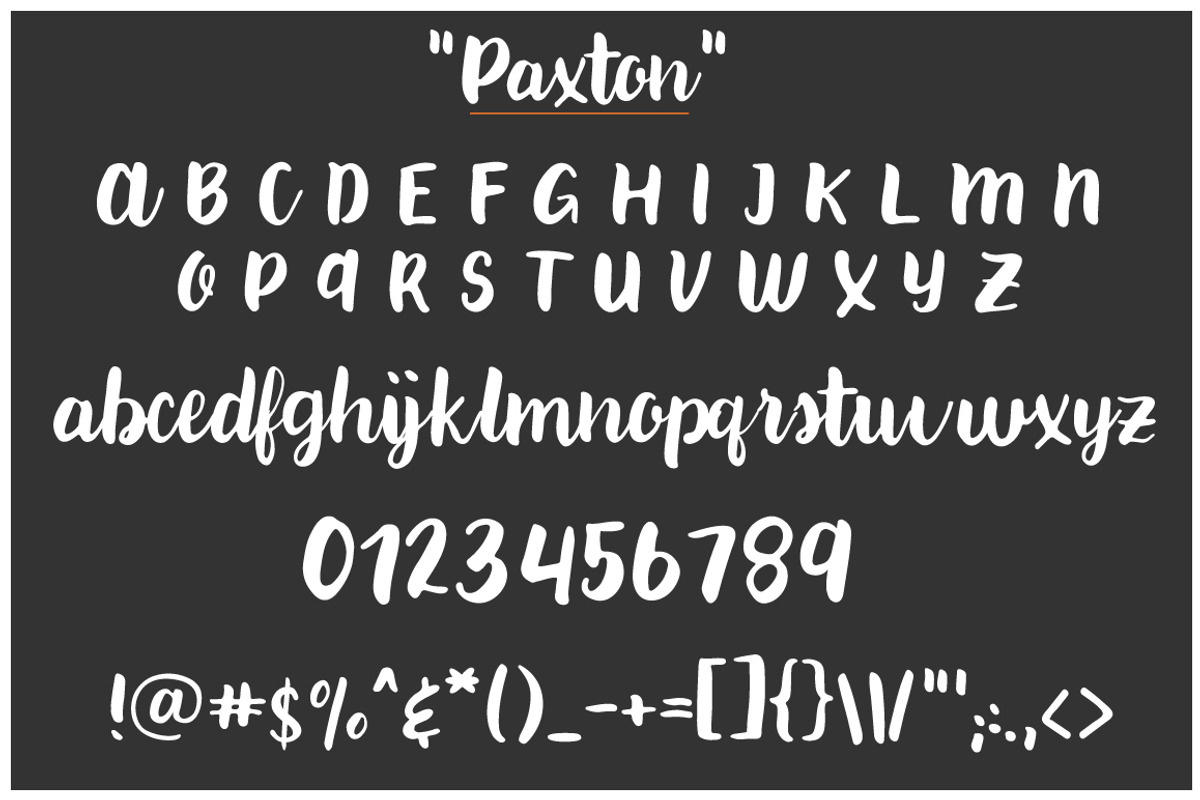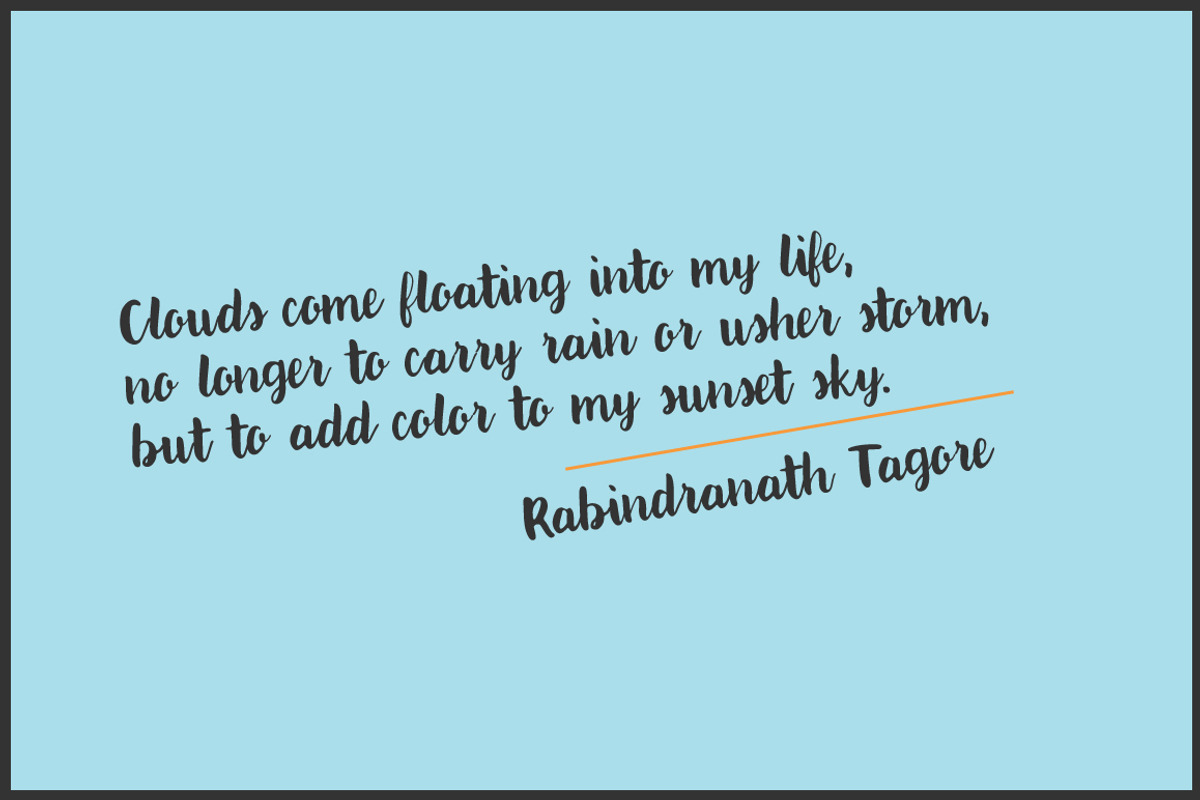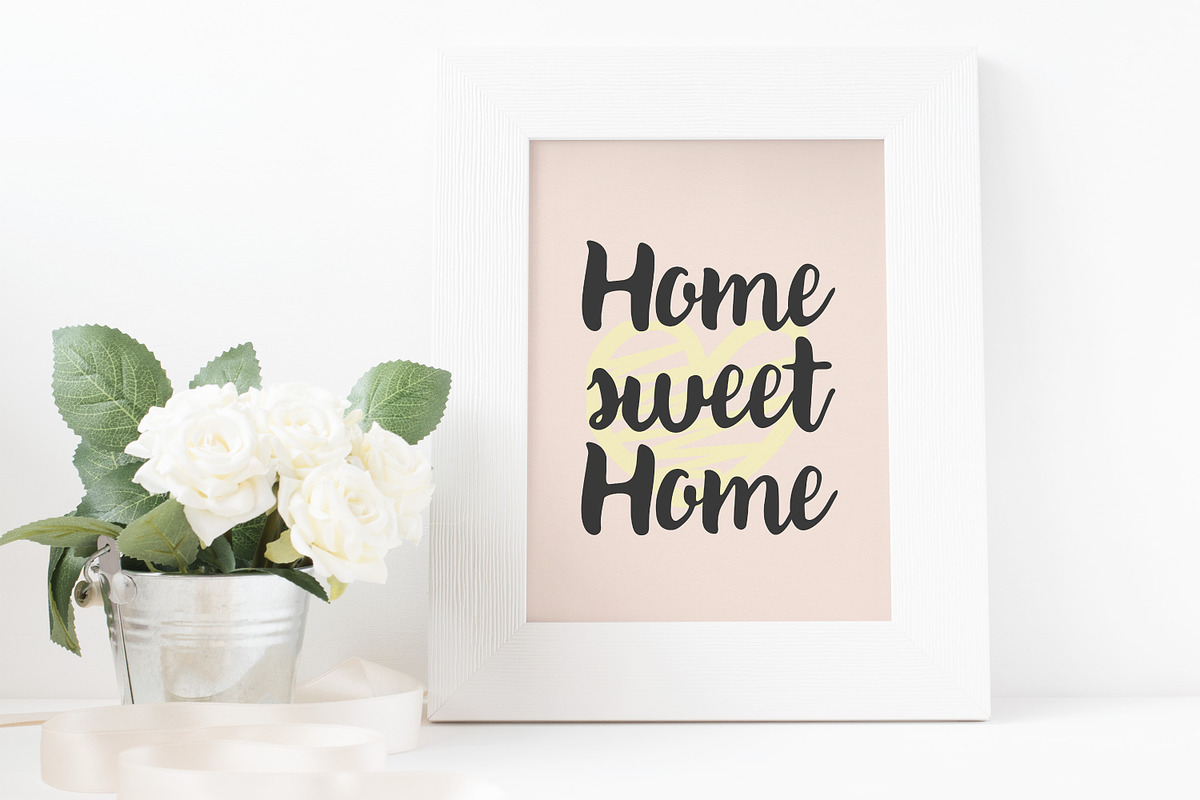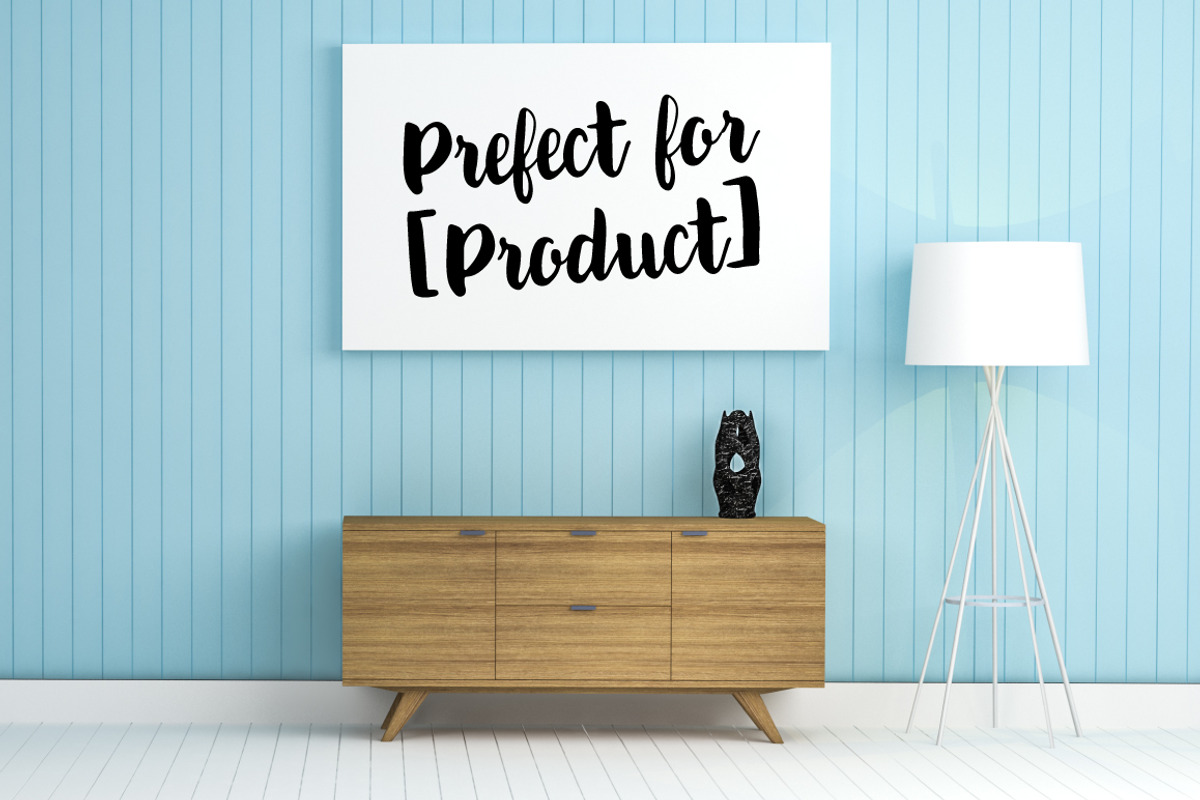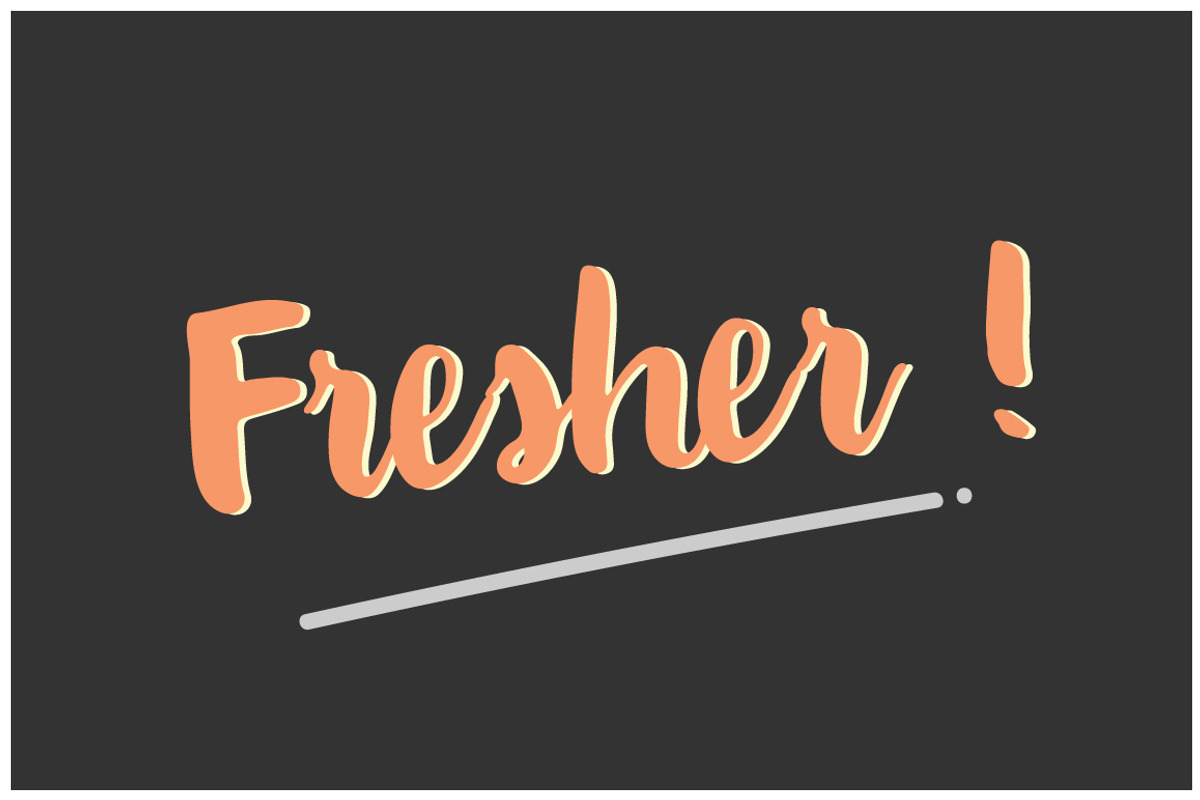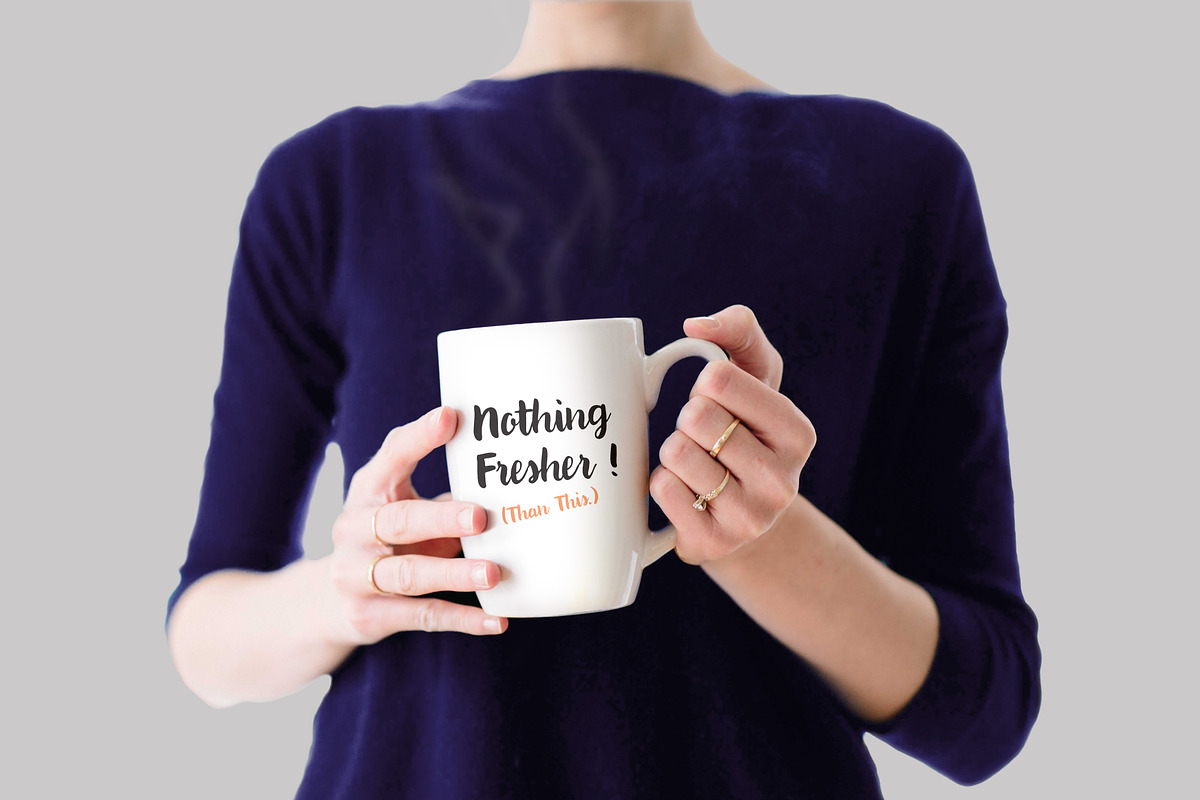
Paxton | A chic Hand written Font
Paxton is a chic and fun handwritten font that is absolutely perfect for quotes, products, logos, packaging, and so much more! Fresh and clean
Paxton | A chic Hand written Font by Artstudio fits naturally into Branding, posters, packaging, typography.